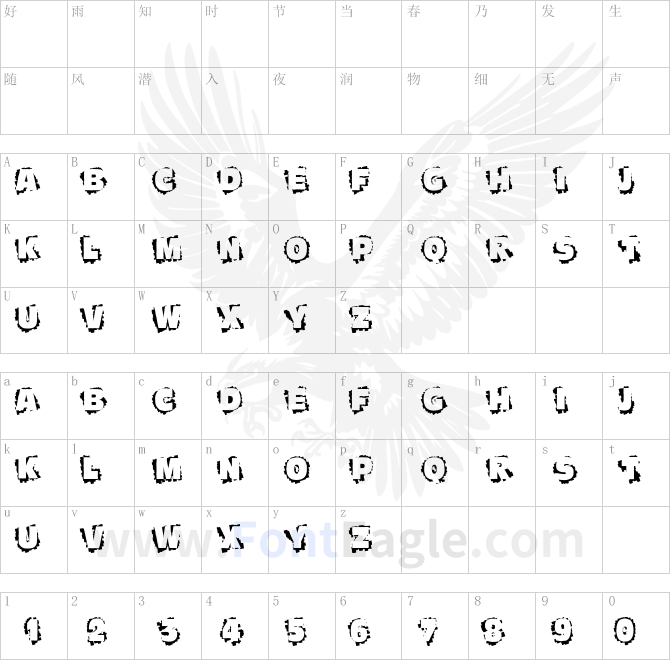
- Font name:Scratch To Reveal
- Font Subfamily ID:TracerTong: Scratch To Reveal: 2012
- Font Full Name:Scratch To Reveal
- Font Version:1.0 – Jan 2012
- Postscript:ScratchToReveal